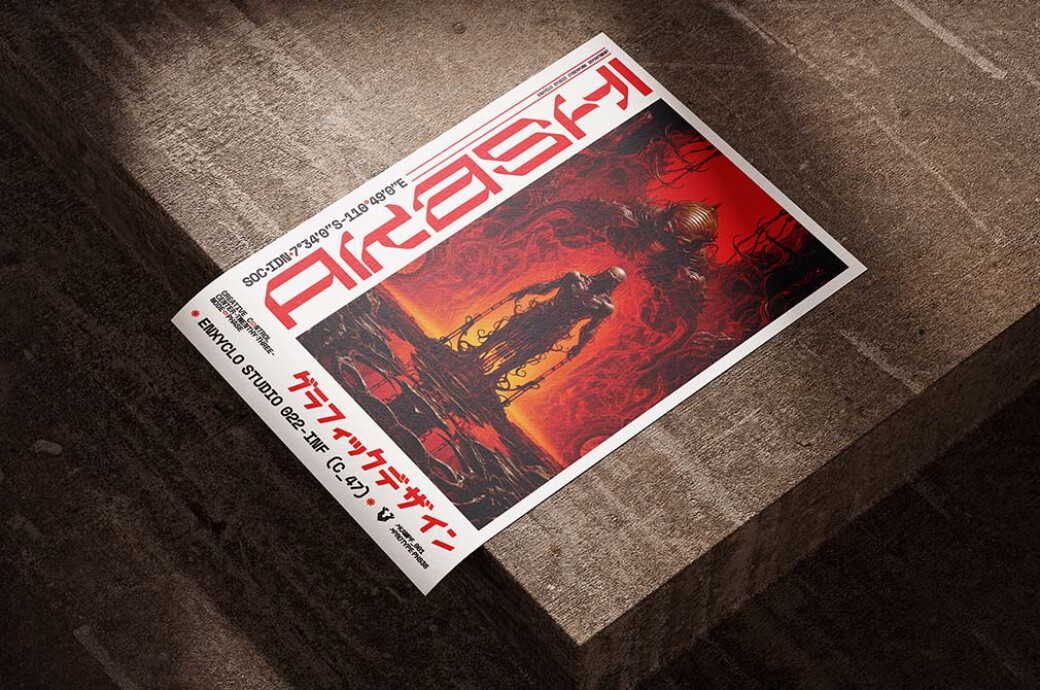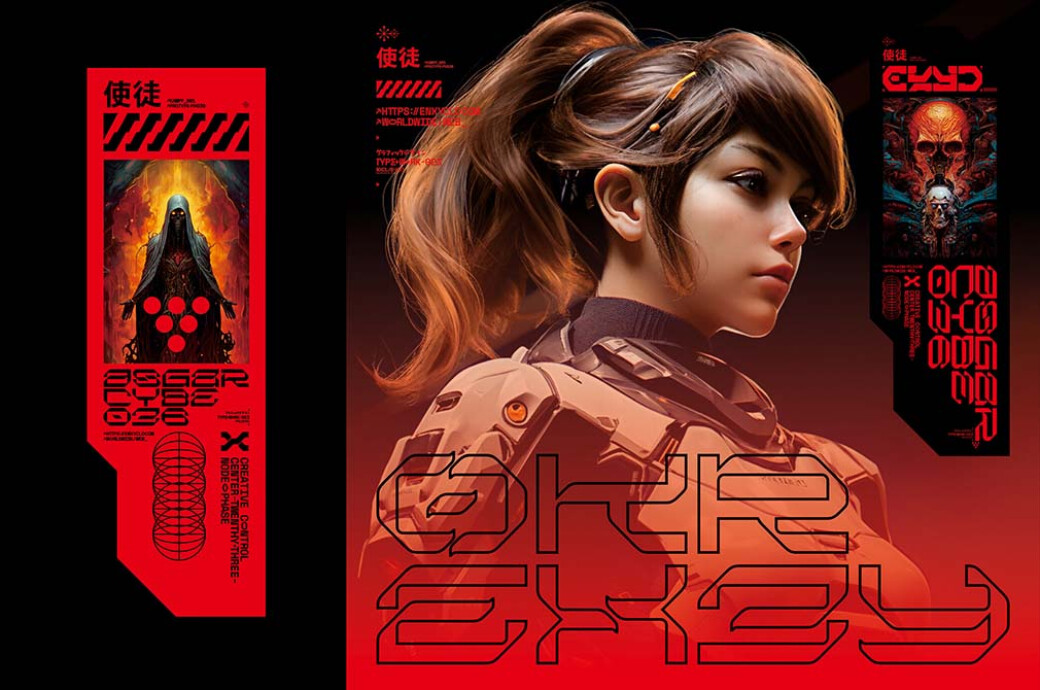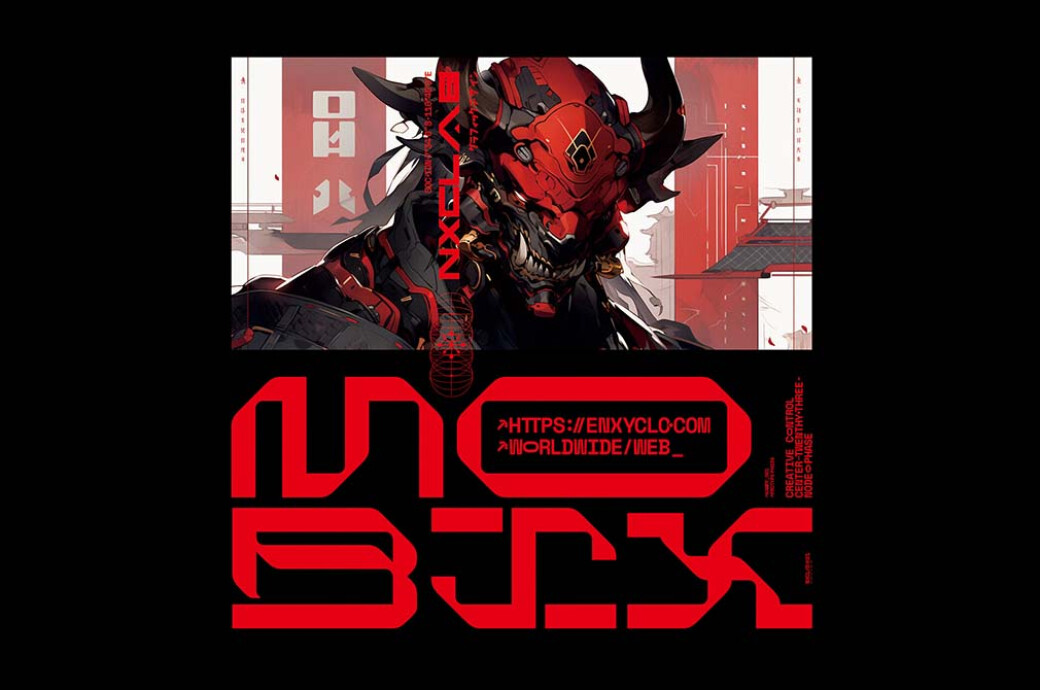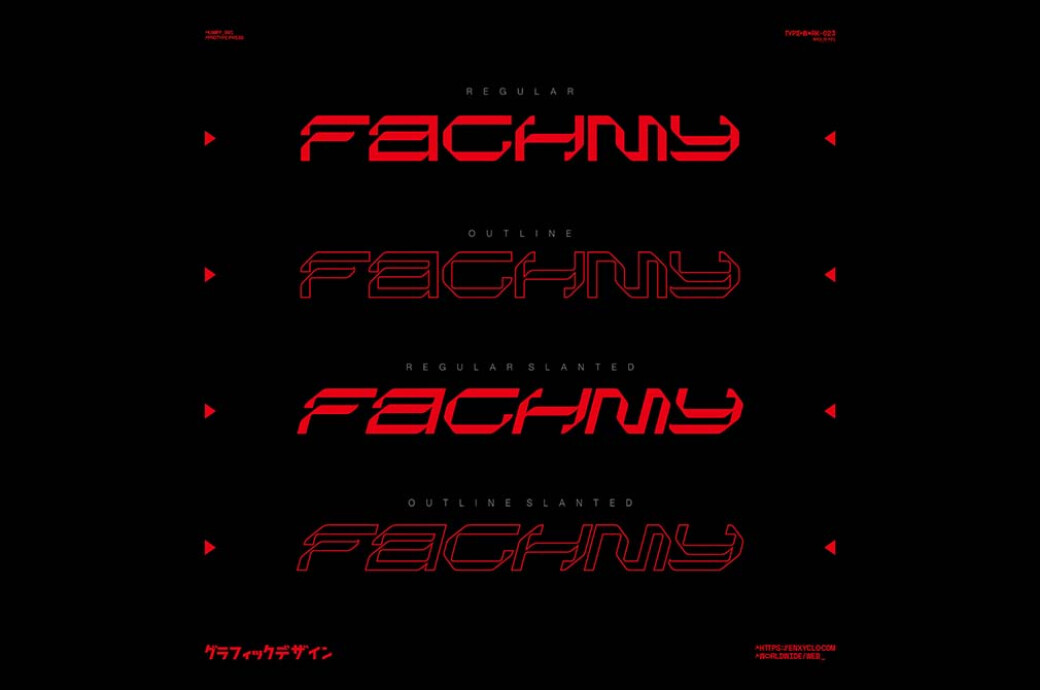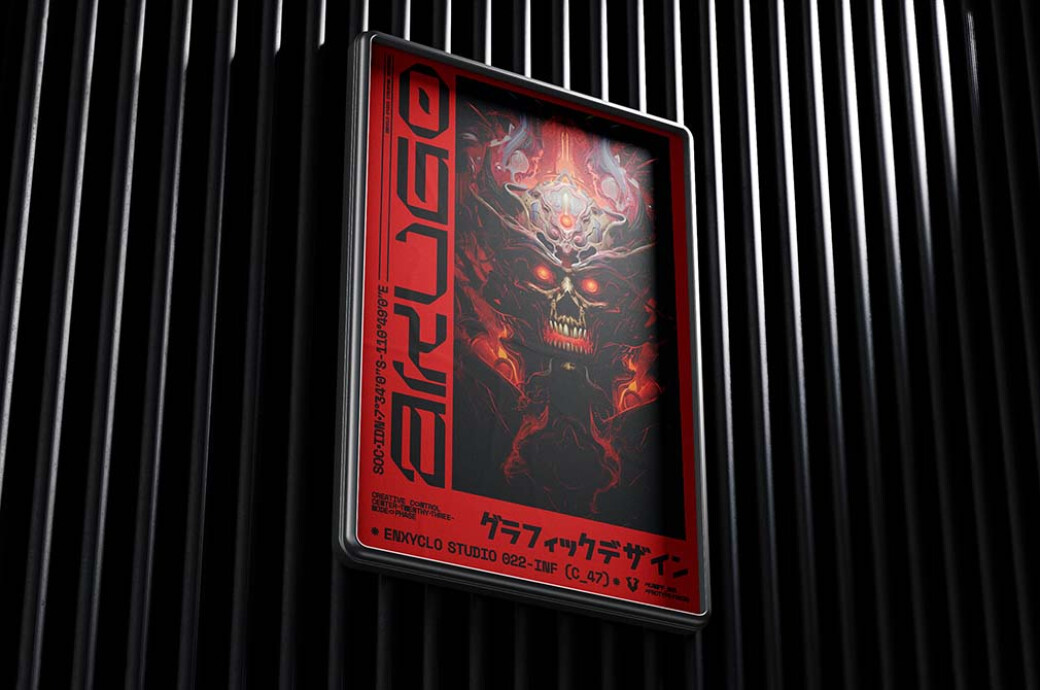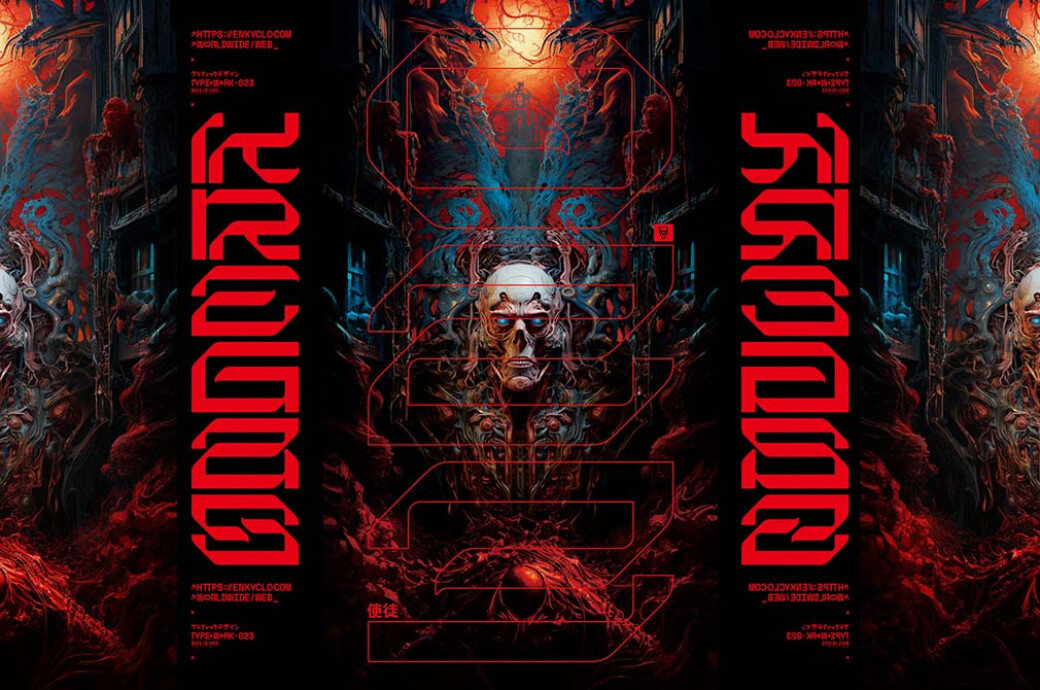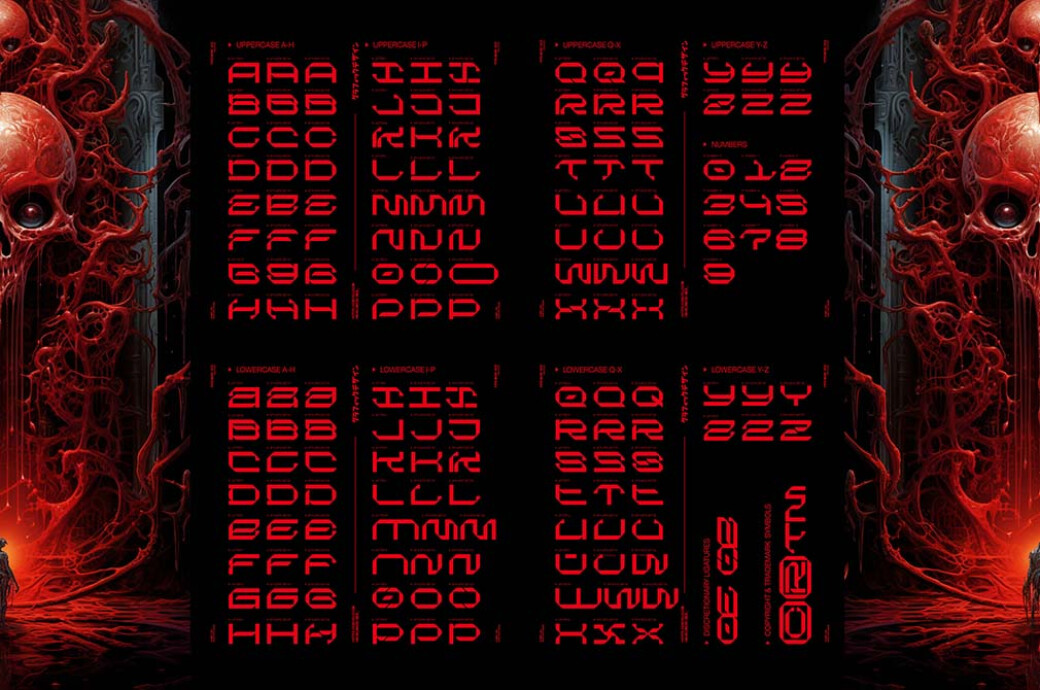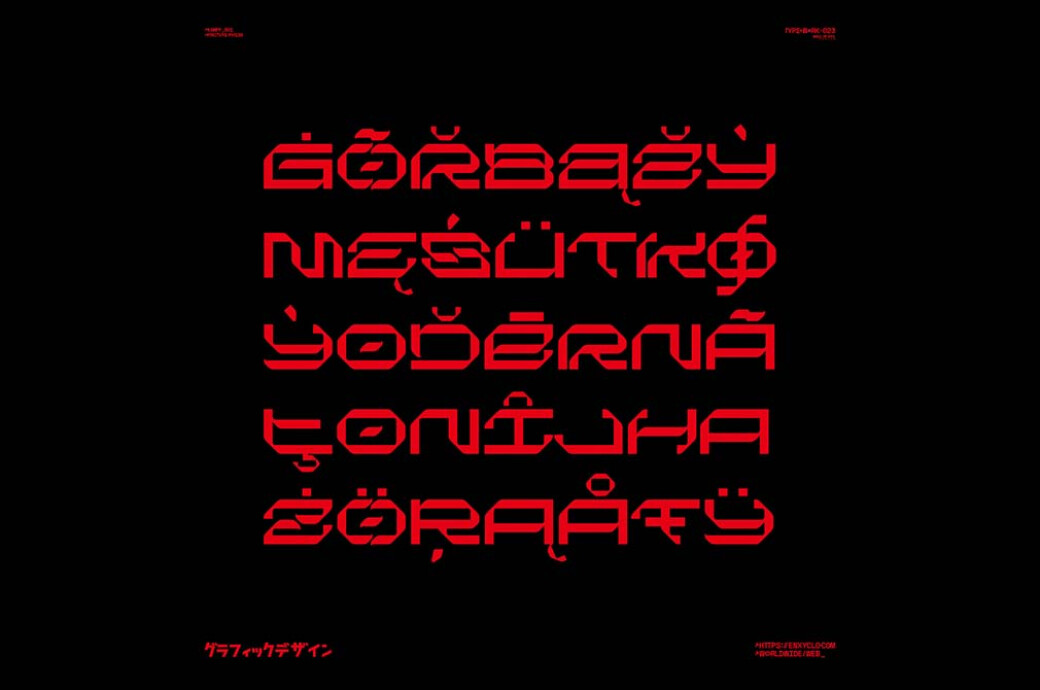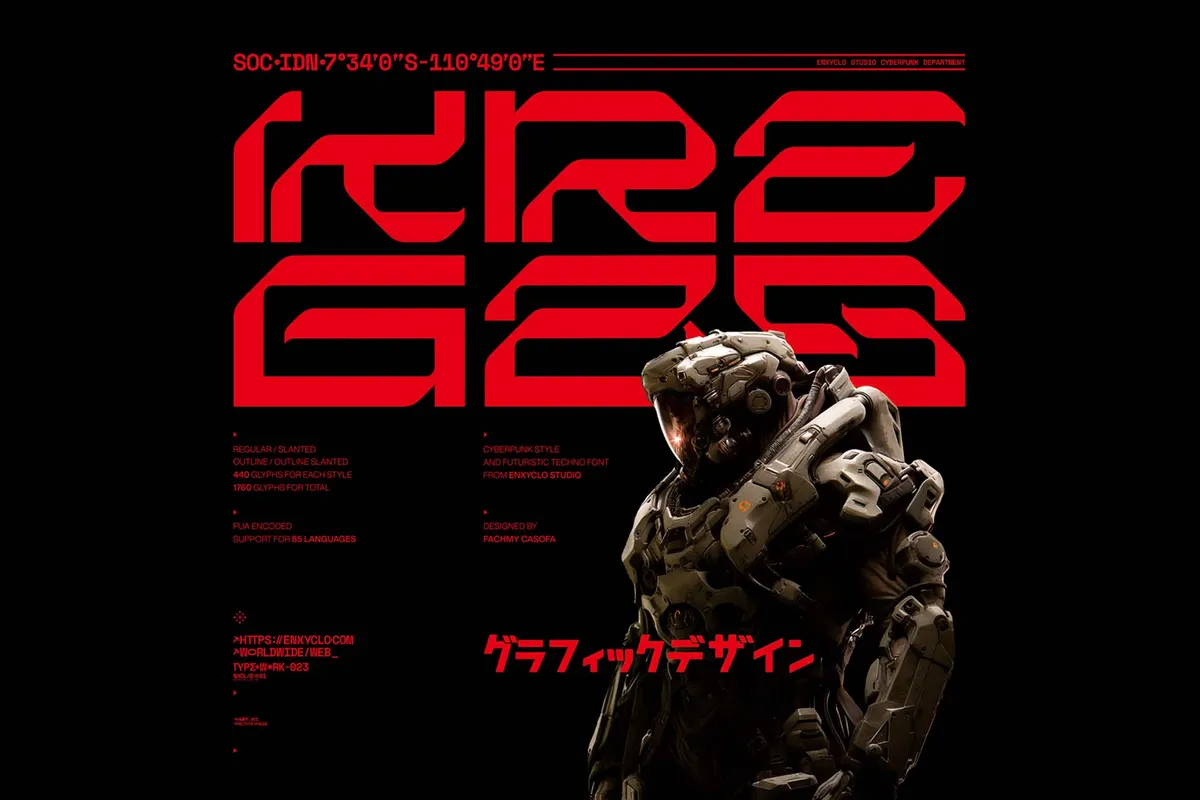
NCL Kregas — Futuristic Mecha Font
Kregas seems like something straight out of an episode of "Ghost in the Shell" or a design detail from "Neon Genesis Evangelion".This mecha-themed type encapsulates all that a techno typographic design can offer: a clean blocky geometry complemented by futuristic curves (possibly inspired by the tech-etched suits of "Gundam" or the fluid interfaces in "Psycho-Pass"). Kregas includes 4 styles**(Regular,** Slanted, Outline, Outline Slanted). You will get 440 glyphs for each style, from standard characters to stylistic sets. We encourage you to imagine it on the control panel of a towering mecha or incorporate it into the logo for a new, edgy anime series. With Kregas, your designs aren't just ahead of the times, they're bringing the vivid world of anime-style futures to life.